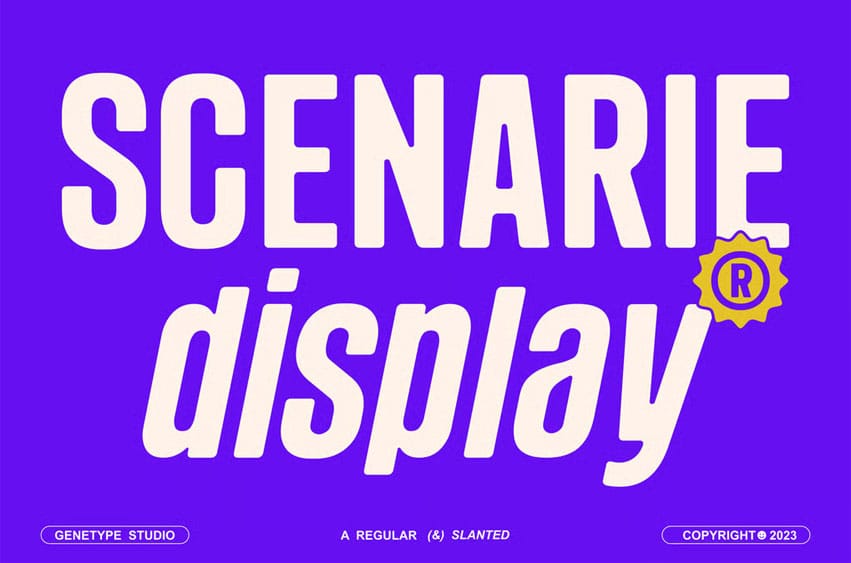
Scenarie Display Font is a bold and modern condensed sans serif typeface designed for high-impact visual projects. Its clean, tall letterforms and subtle rounded edges give a strong yet friendly personality, while the slanted version adds dynamic motion and versatility to your typography work.
This typeface brings a perfect mix of retro poster aesthetics and modern branding energy. It’s ideal for use in headlines, branding, packaging, menus, and digital content — anywhere you want your words to stand out with confidence and style.
Available in Regular and Slanted styles, Scenarie Display offers great readability and personality for both print and screen. From streetwear logos to cafe branding, or from editorial layouts to web headers, this font adds a bold, authentic touch to every design.